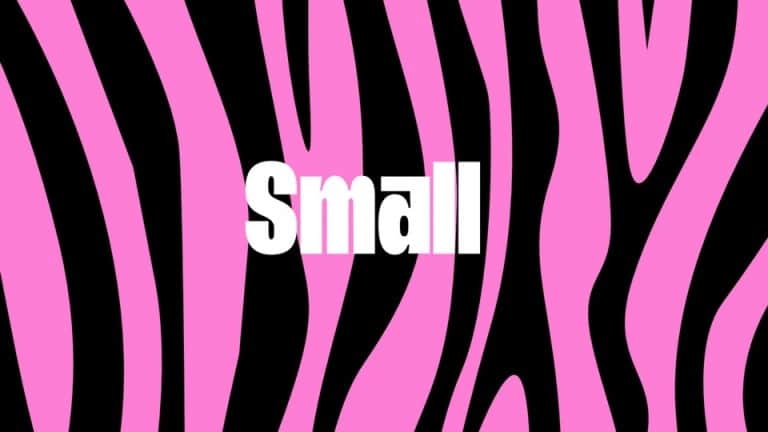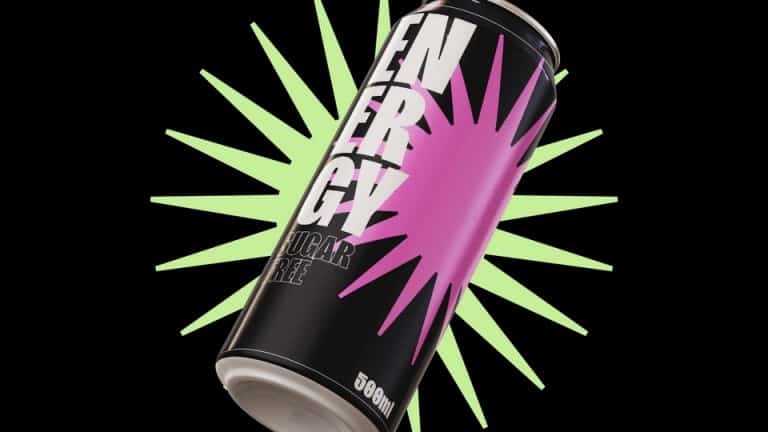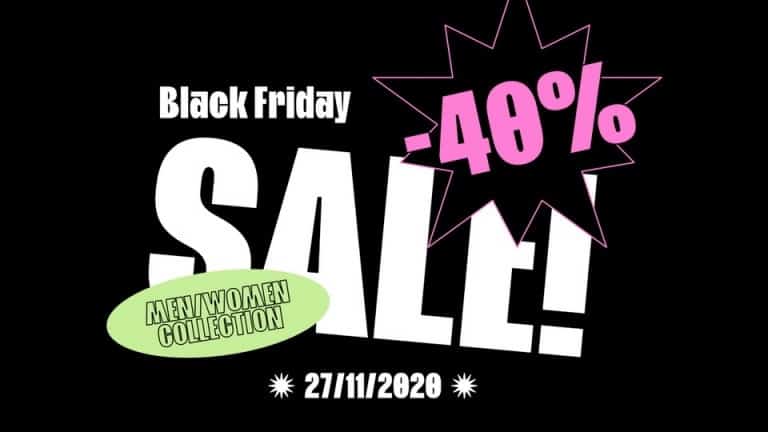
GitSans Sans Serif Font is a modern sans serif typeface. Made from font designer named Michał Mareczko. You can use sans serif font feature in many areas easily. GitSans is a contemporary display typeface designed for robust and high-impact use. It’s ideal for headlines, logos and bold attention-grabbing editorial design.